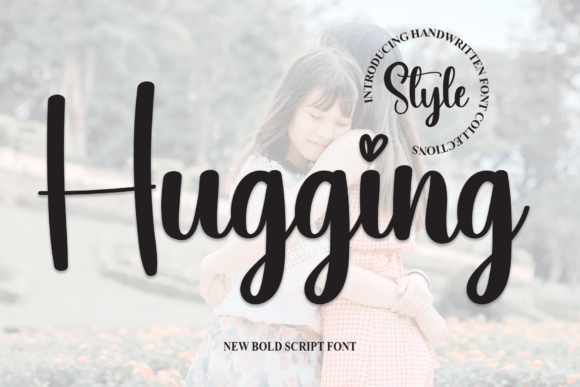
About Hugging Font
Huggingfont is an elegant and charming handwritten script designed to add a refined and personal touch to your creative projects. Its graceful style makes it an excellent choice for a variety of uses, especially in wedding invitations, thank you cards, quotes, greeting cards, logos, business cards, and any design that benefits from a handcrafted feel.
Elegant Handwritten Style
Huggingfont features beautifully balanced characters with smooth, flowing lines that evoke warmth and sophistication. This style brings a delicate, personal vibe that resonates perfectly with designs requiring elegance and intimacy. Its handwritten charm makes your projects feel thoughtful and unique.
Perfect for Wedding and Event Designs
Because of its refined appearance, Huggingfont is ideal for wedding invitations and event stationery. It lends a romantic and atmosphere that enhances the emotion behind these special moments. The font’s elegance ensures that your invitations and thank-you cards will leave a lasting impression on your guests.
Versatile Use in Branding and Business
Beyond events, Huggingfont works for logos and business cards. Its handwritten style adds authenticity and to brands, helping them stand out in competitive markets. Whether for personal brands or businesses aiming to convey warmth and trust, this font fits perfectly.
Why Choose Hugging Font?
Huggingfont combines charm and elegance in a neat script that elevates every project. Its versatility and timeless style make it a valuable addition to any designer’s toolkit. Use it to bring a sophisticated and heartfelt touch to your wedding branding, and more.